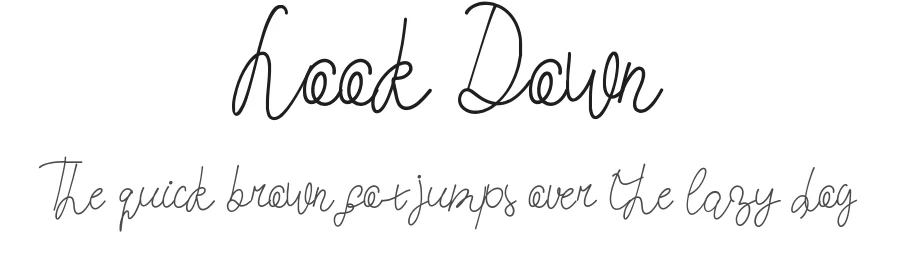
About Gellato Font
Gellato is sweetly inspired by the popular frozen desert from Italy and the gorgeous curve of the typeface followed the shape of an ice cream filling the cone. This script font surely will give an authentic and sweet touch for both your formal and non-formal design.
Gellato Font is suitable for variety of branding projects, logos, parties and events, social media posts, advertisements, and so much more. Get ready to serve your designs with this finger lickin' good font! Gellato is an authentic script font that suitable for variety o branding projects, logos, social media post, advertisement, and much more!
| Designer | Khairil Anwar |
Gellato Font is a script font that shines as a display or heading face. Pair it with a clean sans-serif or serif font for body text β the contrast creates a clear hierarchy while the two styles stay balanced and easy to read.